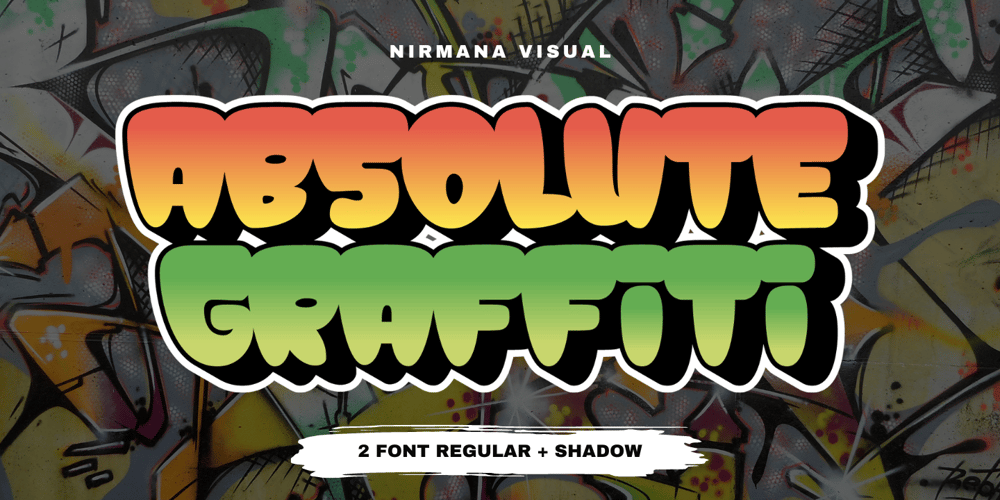
Absolute Graffiti Font Family was designed by Sigit Dwipa and published by Nirmana Visual. Absolute Graffiti contains 2 styles and family package options. Introducing our vibrant and edgy graffiti style font, designed to unleash your creativity and make a bold statement. With its urban-inspired letterforms and street art aesthetics, this font is perfect for adding an energetic and rebellious touch to your designs.Inspired by the vibrant graffiti culture, this font captures the raw and expressive nature of spray-painted lettering. Its dynamic and fluid strokes, along with the signature drips and splatters, give your designs an authentic street art vibe. Whether you’re designing album covers, posters, or urban-themed branding materials, this font is sure to grab attention.